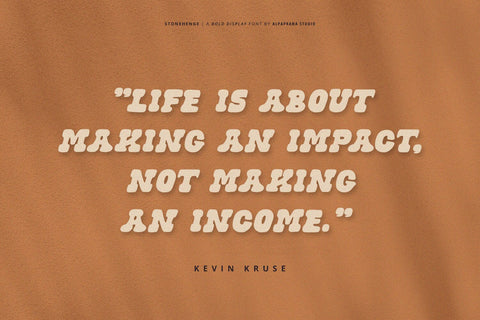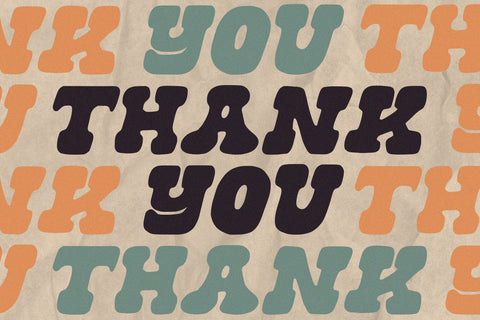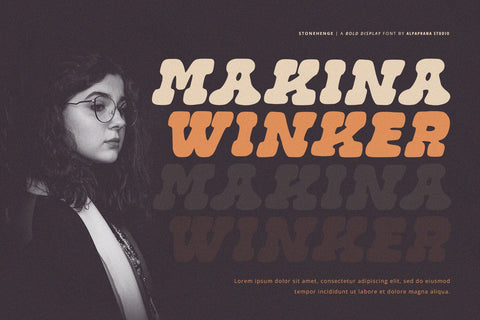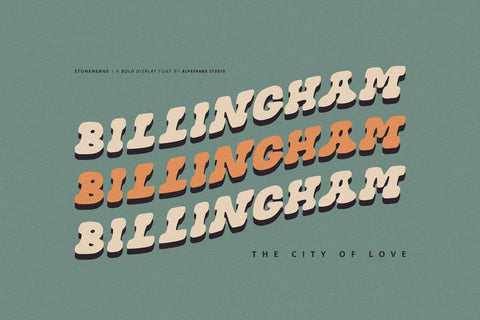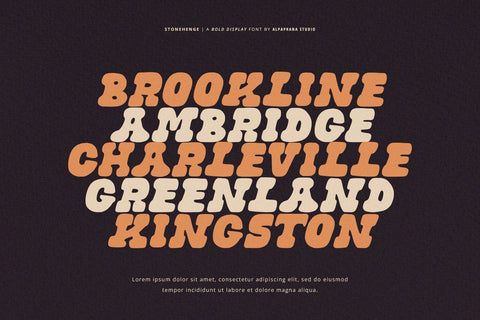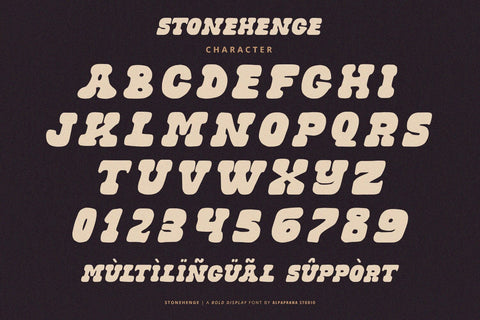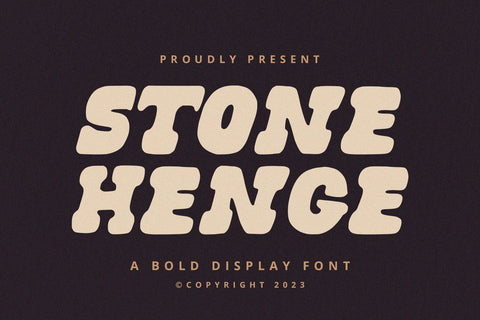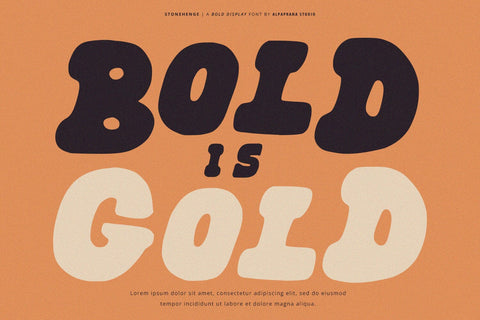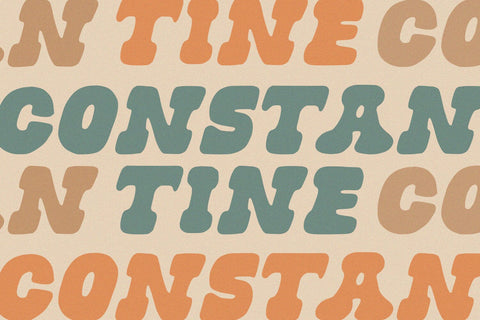
Stonehenge - Display Font
Stonehenge is a display font with natural and vintage feels. It will be perfectly used for Branding, Logo Design, Lettering, Logotype, Clothing, Poster, magazine, packaging, posters, shopping bags, t-shirts, book covers, photography, special events and other design project.